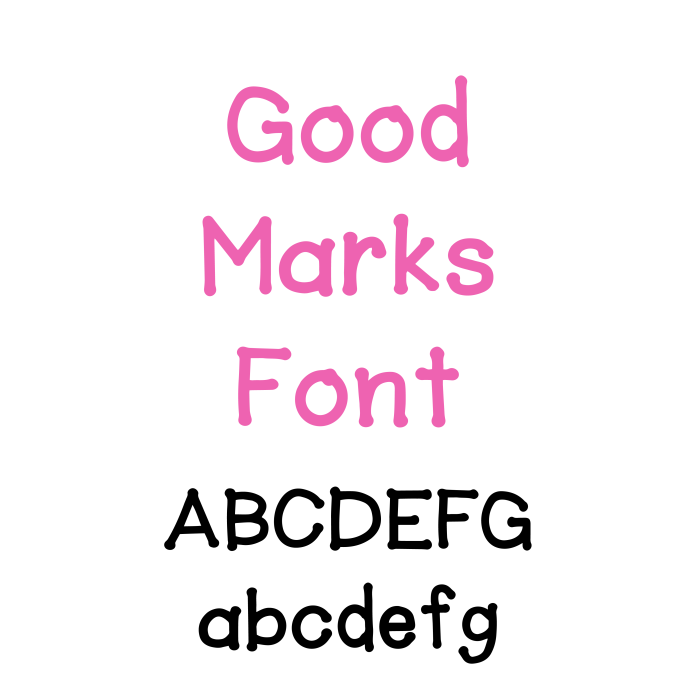
"Good Marks" is the perfect font for all your school-themed projects! With its clean, easy-to-read design, this playful and approachable font captures the feel of handwritten notes and classroom assignments. Ideal for teachers, students, or anyone creating school-inspired crafts, "Good Marks" adds a fun, personal touch to everything from homework organizers to classroom décor. Its friendly style works beautifully for both kids' projects and educational materials. Whether you're making bulletin boards, posters, or custom stationery, this font is a must-have for adding charm and creativity to your school designs!